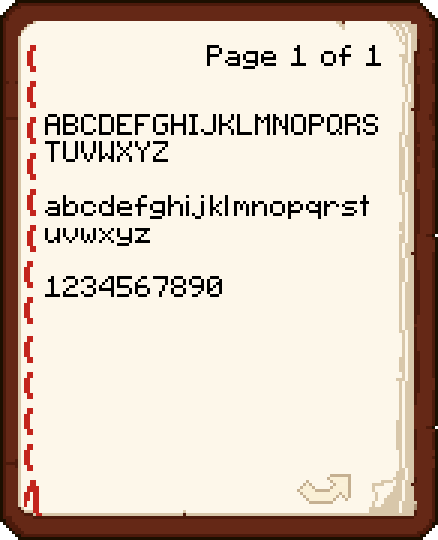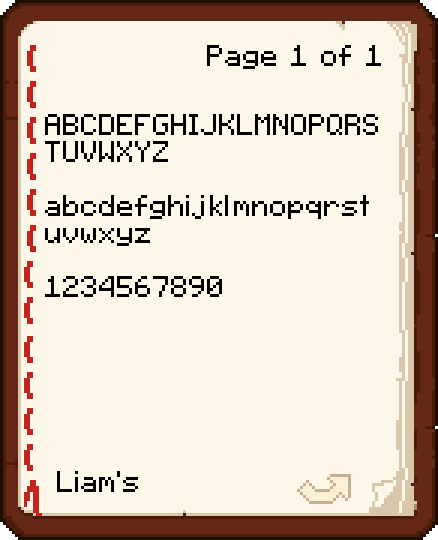
This pack makes a few changes to Minecraft's vanilla font. The main improvement is that the centre line (like in the E) is now actually in the centre. See a side by side comparison with vanilla in the gallery.
This version only changes the Latin alphabet in the ascii.png file, no accented characters have been changed yet.